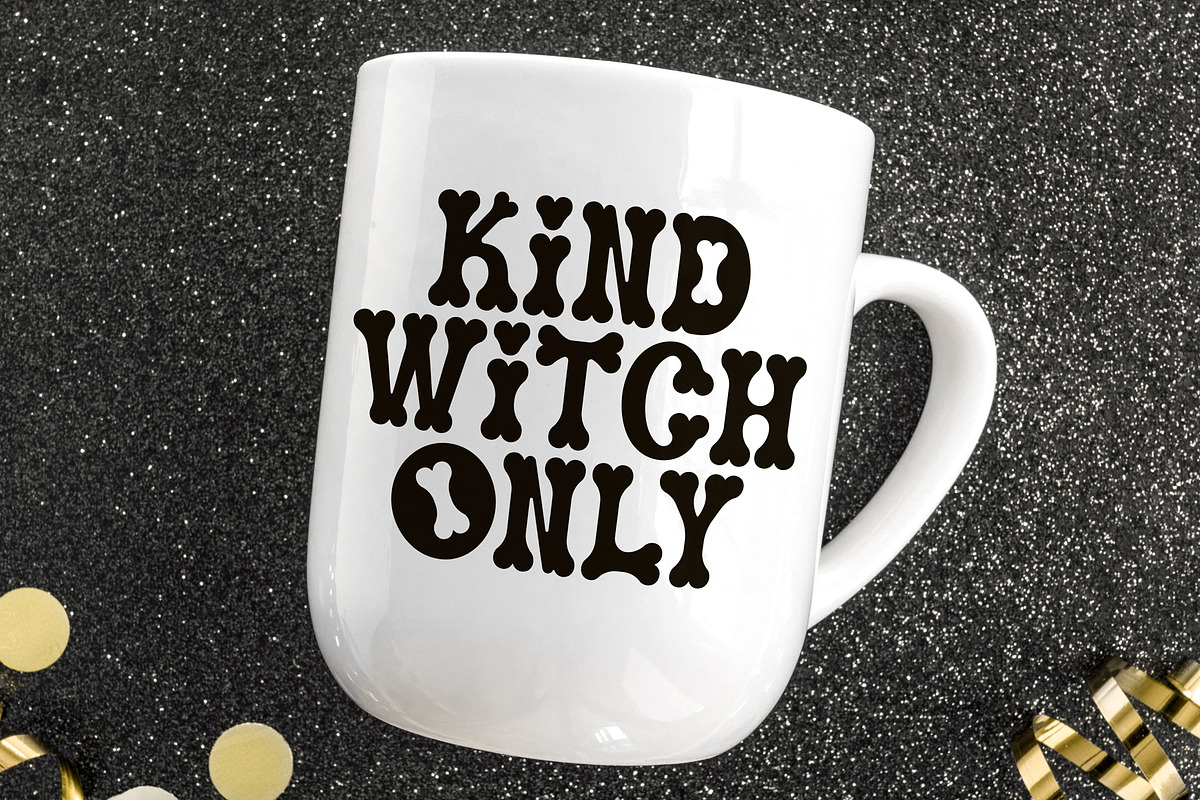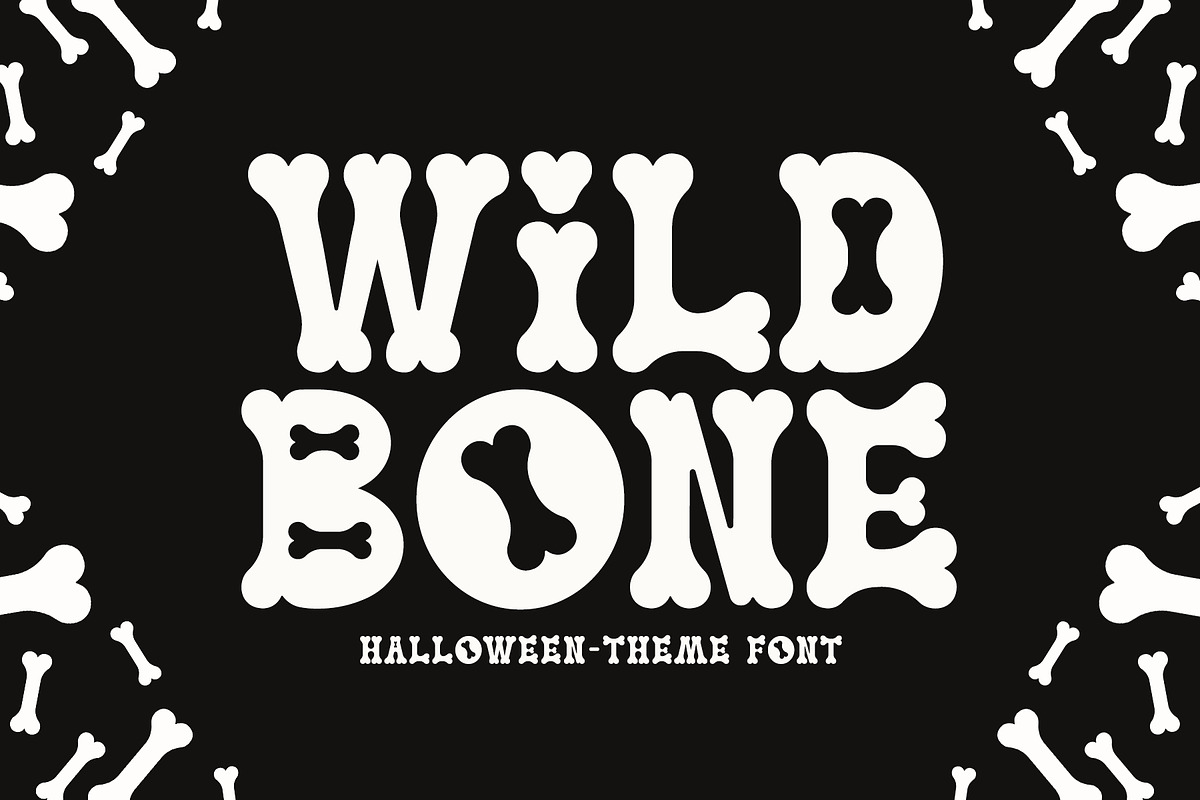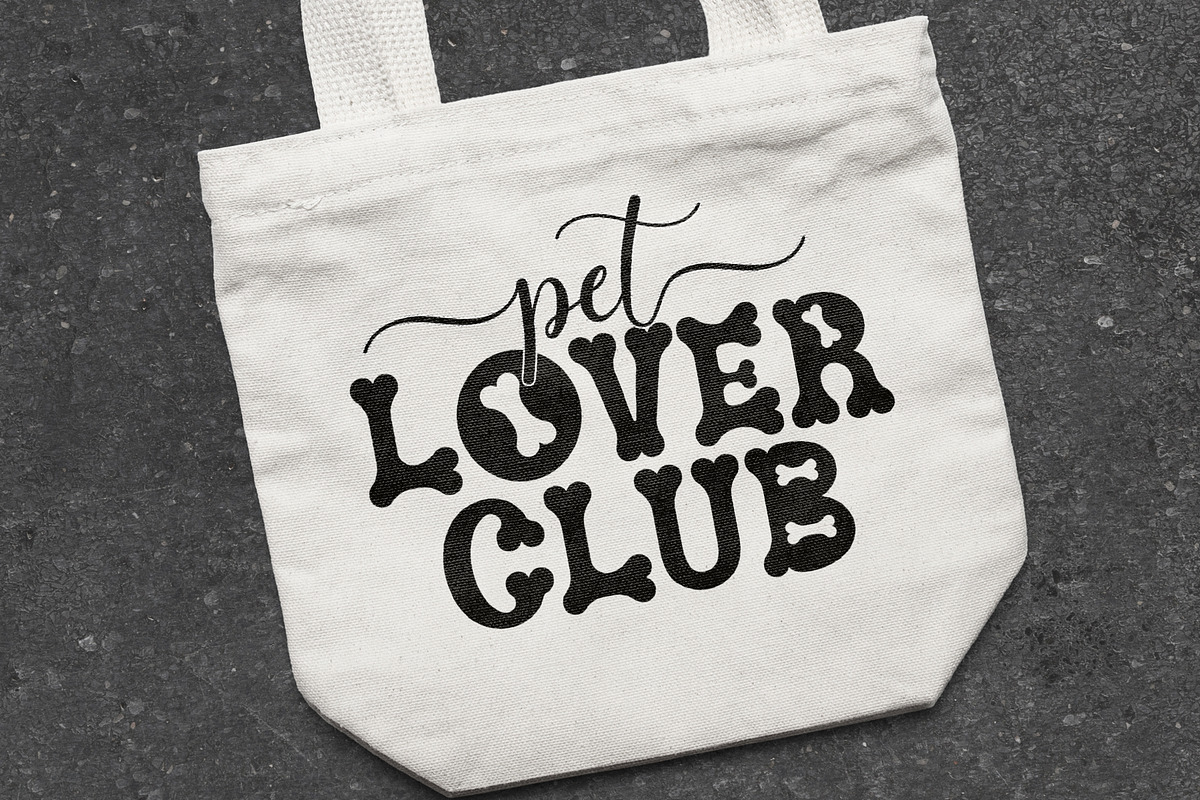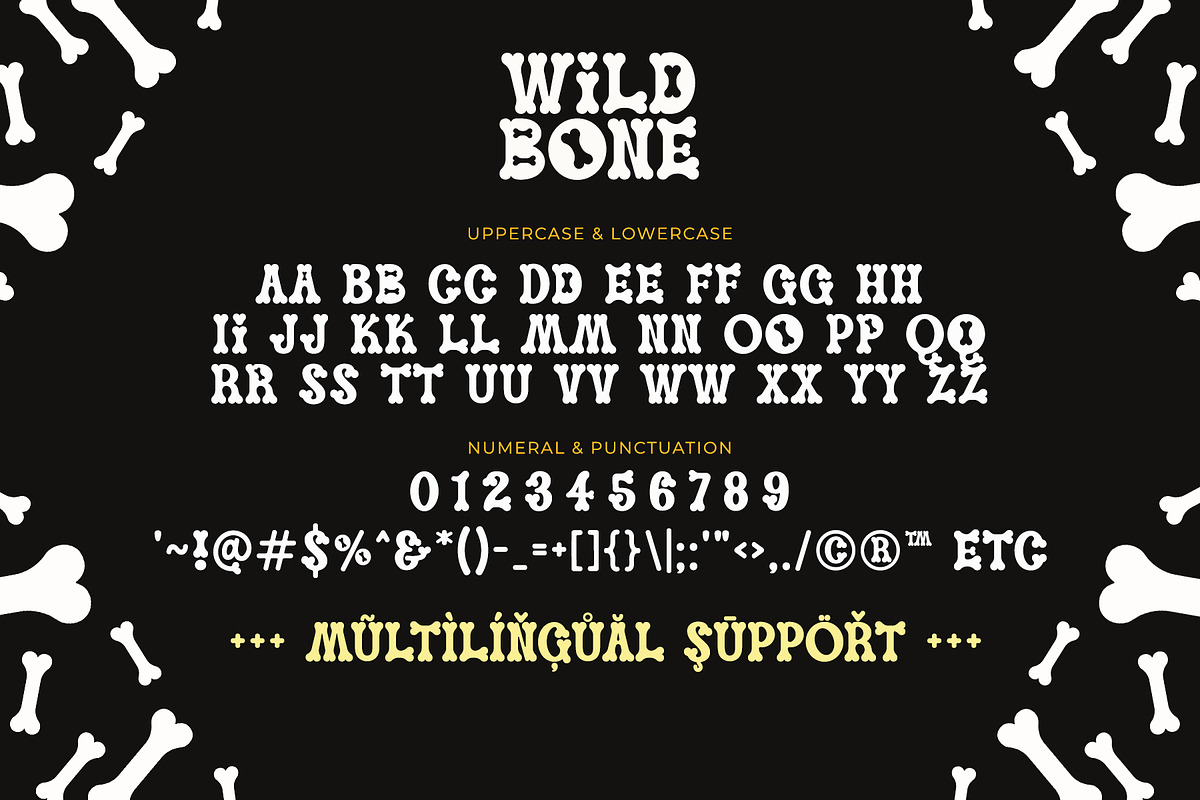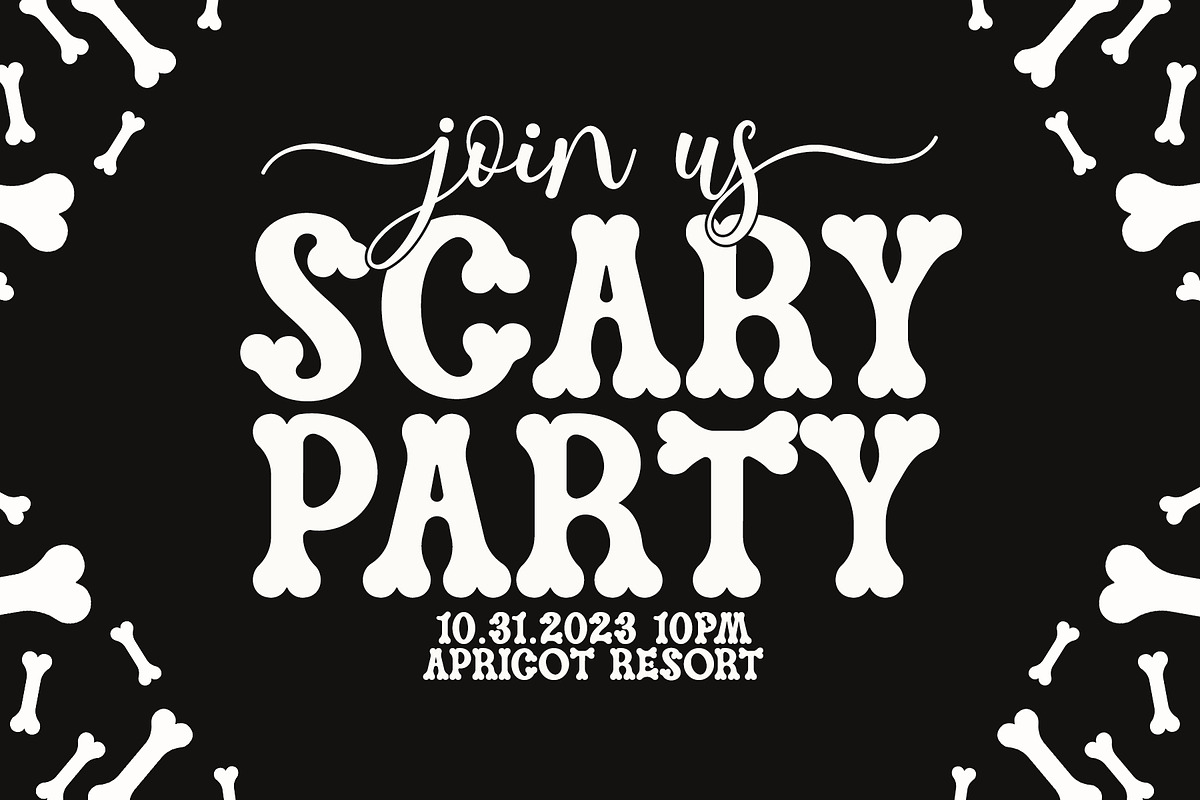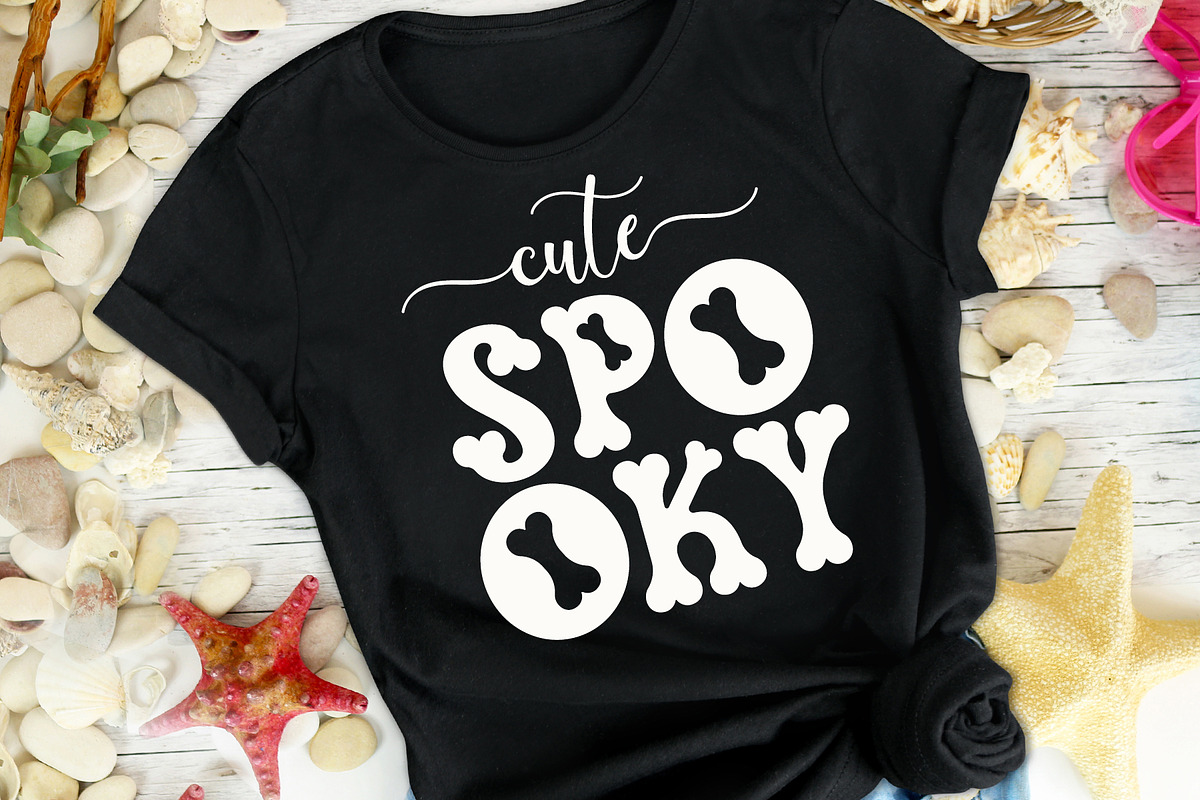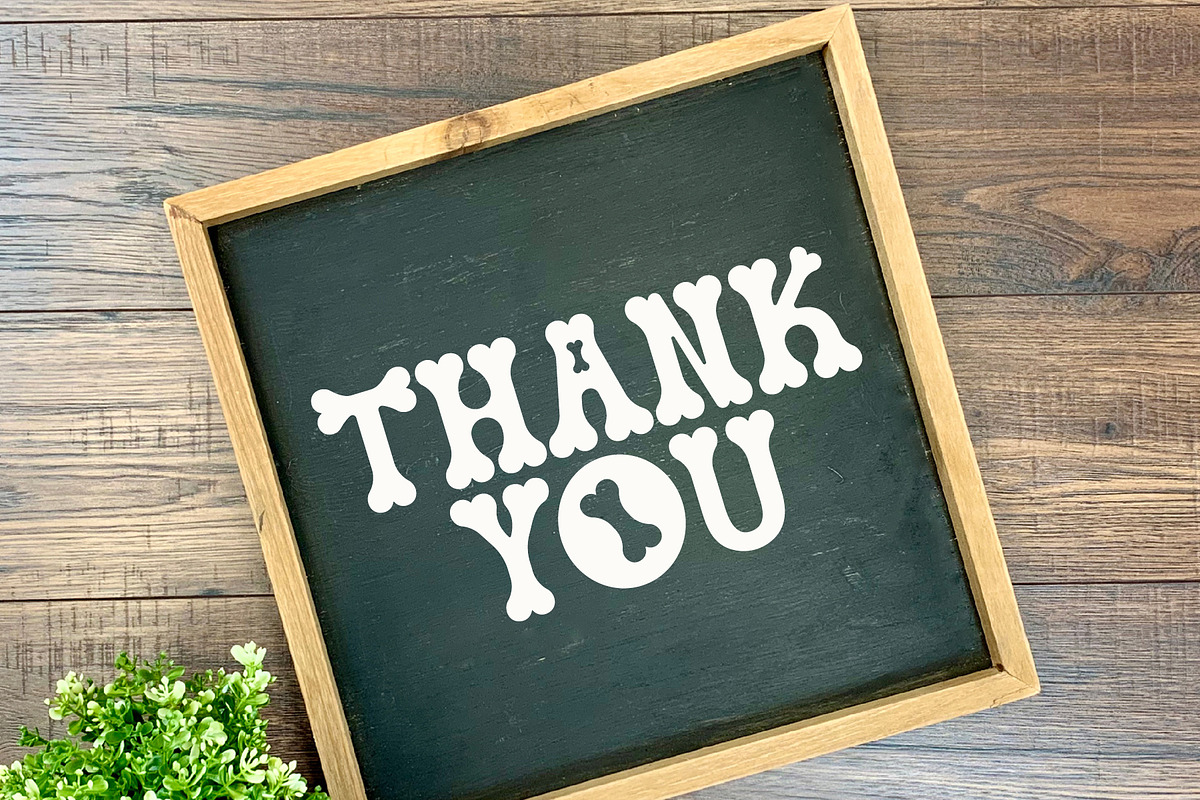
Wild Bone - All Caps Spooky Font
Wild Bone is all caps serif font. This is bold, spooky, and funky.
This font is suitable font for design that needs spooky and retro vibes, such as Halloween, t-shirt, stickers, crafting, sublimation, and many more.
It is also suitable for pet design, such as cat, or dog.
- All Caps
- Most Multilingual Accent